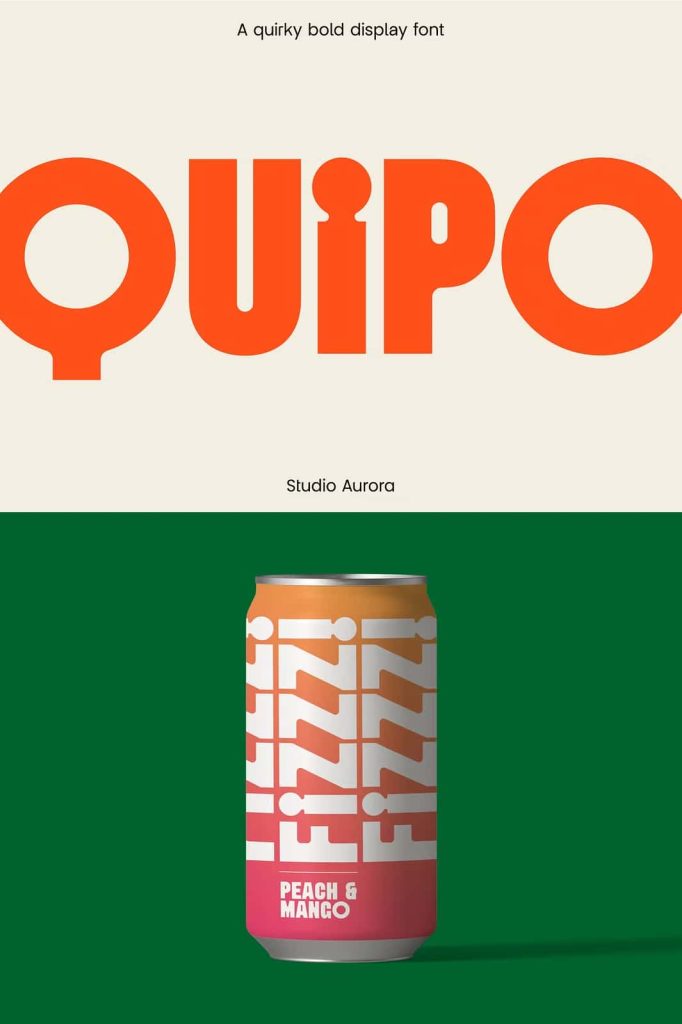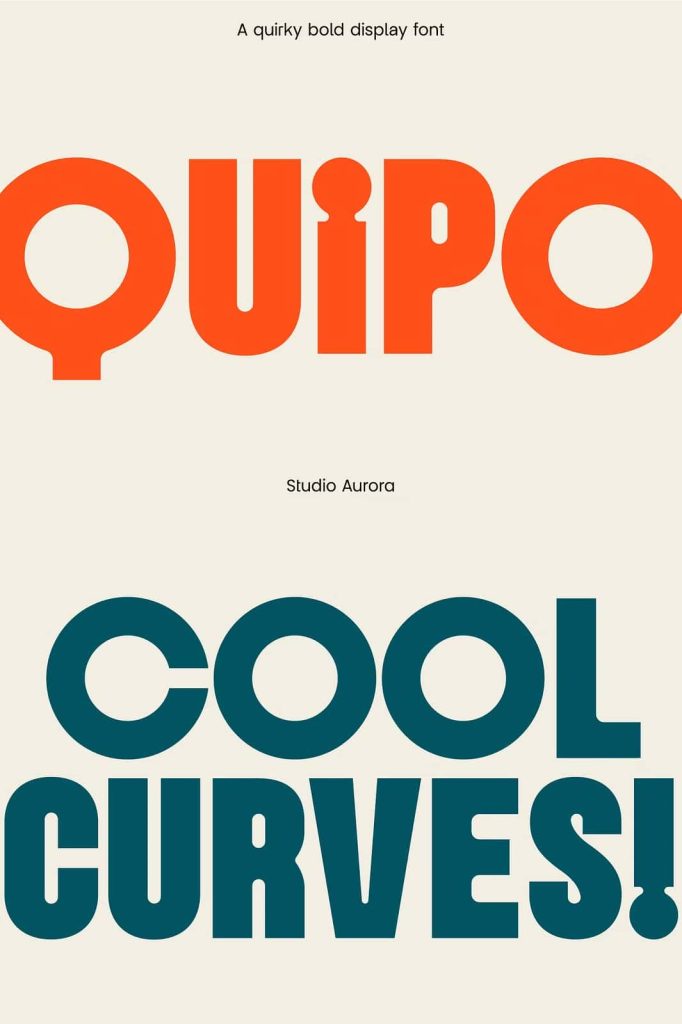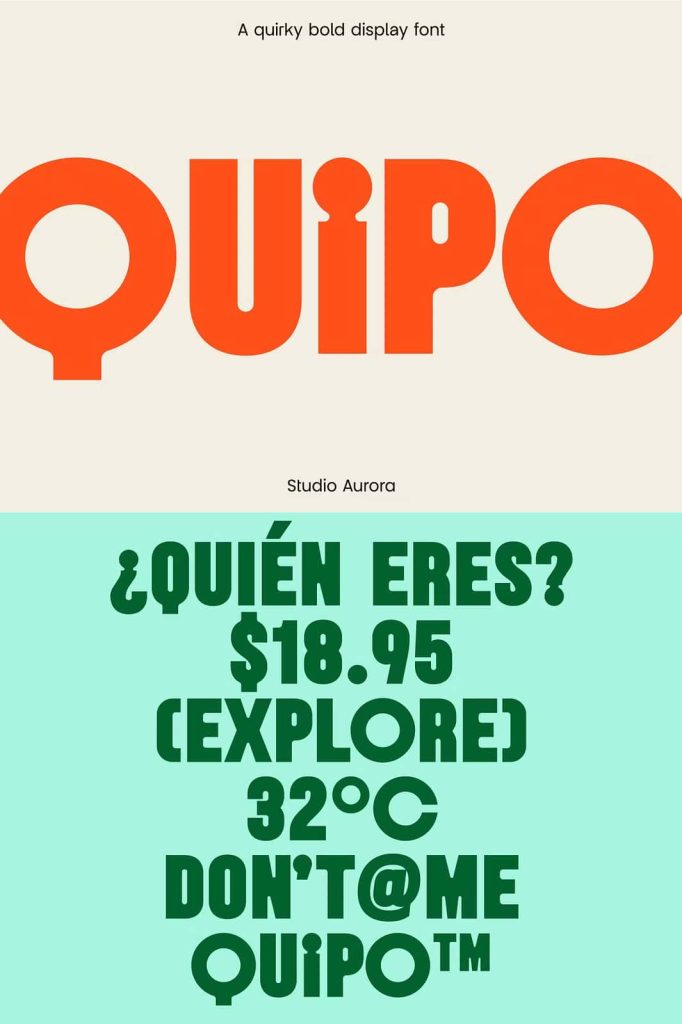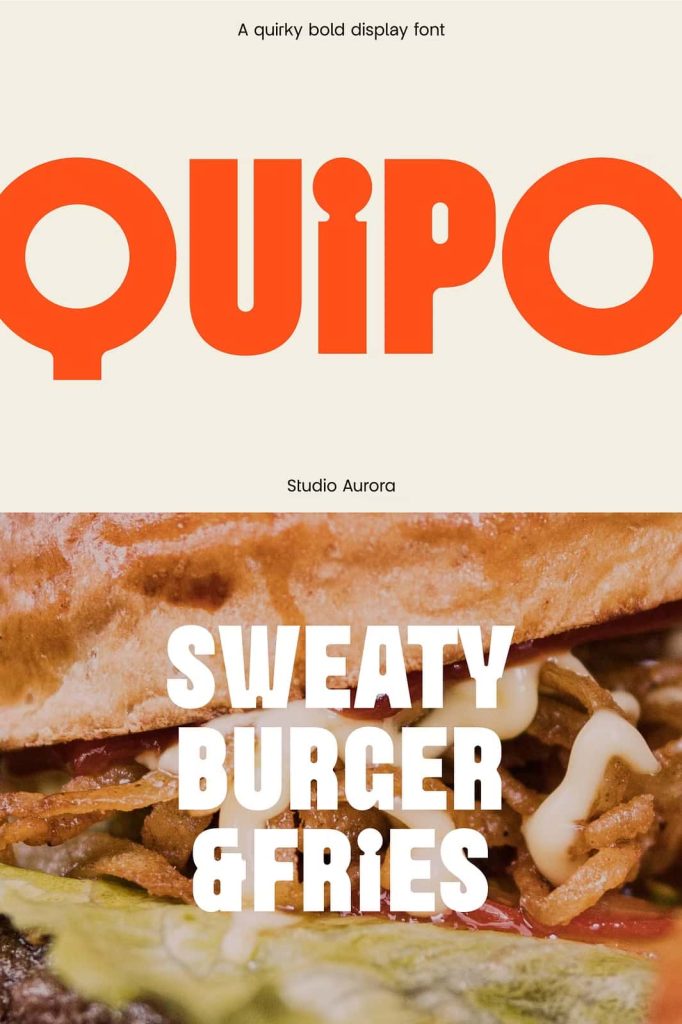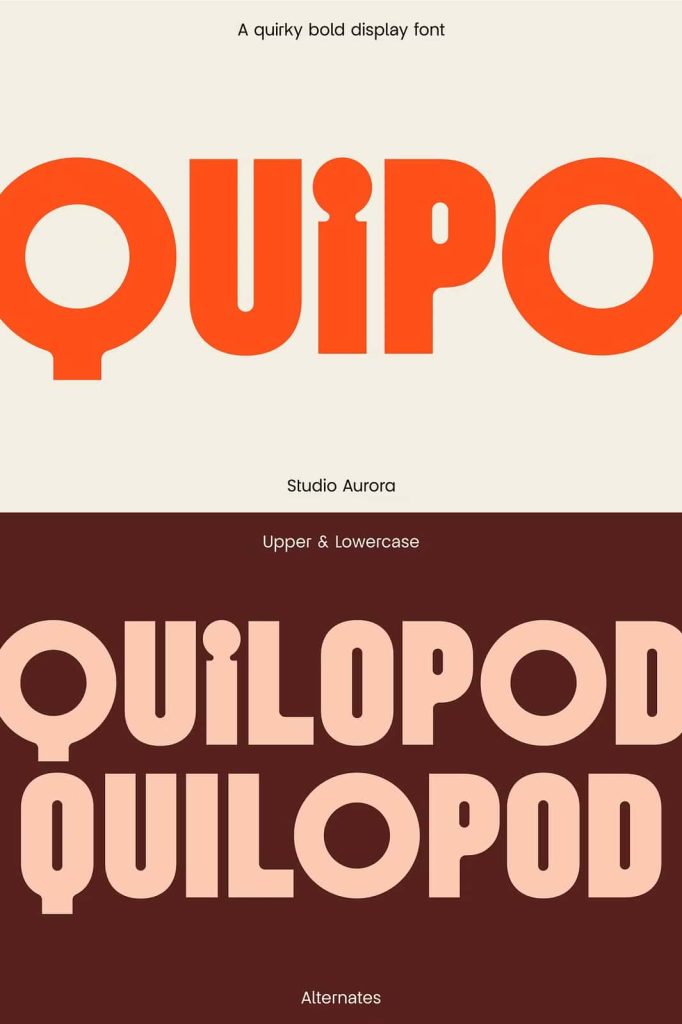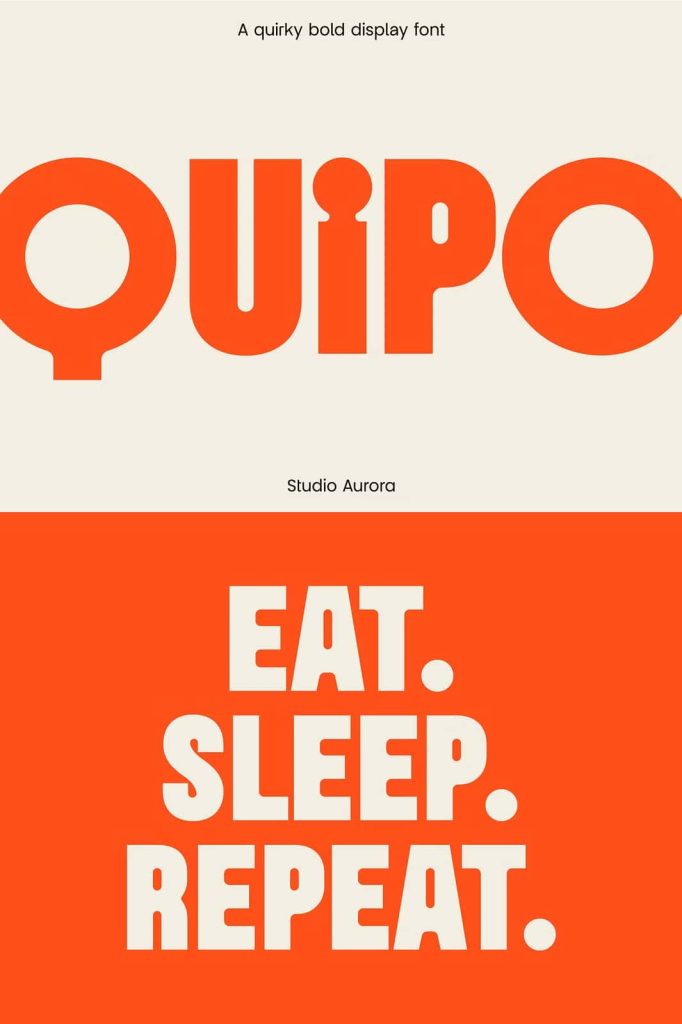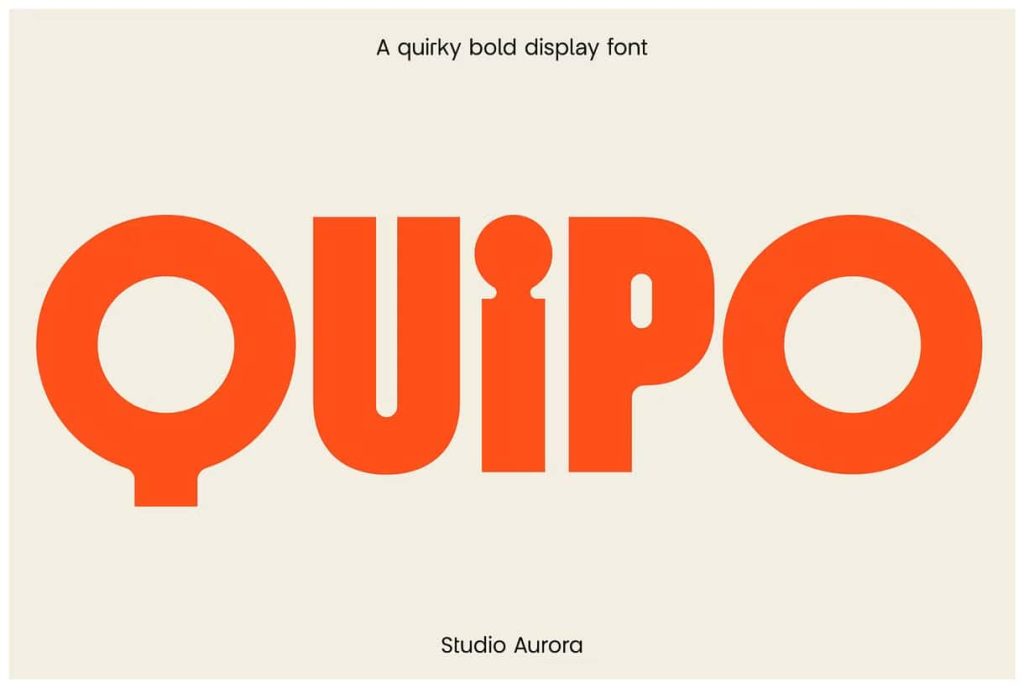
Quipo – Quirky Bold Display Font
Quipo: A Quirky and Bold Display Font with Contemporary Impact
Quipo is a bold display font that commands attention through playful curves and confident letterforms. Designed to stand out in modern visual environments, this typeface delivers immediate impact while maintaining a contemporary edge. Its distinctive shapes create a strong visual rhythm, making it ideal for designers who want their typography to lead the conversation.
With its combination of thickness and curvature, Quipo breaks away from traditional display fonts. It feels energetic, expressive, and unmistakably modern. Whether used in print or digital media, Quipo ensures your message never goes unnoticed.
Curved Letterforms with a Bold Personality
The defining feature of Quipo is its curved, exaggerated letterforms. Each character is designed with smooth arcs and rounded edges that create a friendly yet powerful presence. This balance between softness and strength gives the font its quirky personality.
Quipo’s bold weight reinforces readability while enhancing visual impact. The font performs exceptionally well at large sizes, where its unique curves can fully express their character. This makes it perfect for headlines, mastheads, and key messaging elements.
Designed to Capture Attention Instantly
Quipo is built for moments where first impressions matter. The font instantly draws the eye, making it an excellent choice for branding elements that need to stand out in crowded spaces. Its playful curves invite engagement, while its bold structure maintains clarity and confidence.
This combination allows Quipo to feel expressive without becoming overwhelming, ensuring your design remains effective and readable.
Perfect for Logos, Mastheads, and Editorial Design
Quipo excels in logo design, especially for brands that want to communicate creativity, innovation, and personality. Its distinctive letterforms help establish a memorable brand identity that feels modern and approachable.
For magazine mastheads and editorial headlines, Quipo delivers strong visual hierarchy. It anchors layouts with confidence and adds character to covers, feature articles, and promotional spreads. The font works particularly well in fashion, lifestyle, and culture-focused publications.
Effective for Email Marketing and Digital Campaigns
In digital marketing, typography plays a critical role in engagement. Quipo performs exceptionally well in email marketing campaigns, where bold headlines must capture attention quickly. Its readability ensures messages remain clear, even on smaller screens.
The font’s playful tone can soften promotional messaging, making calls to action feel more inviting. This makes Quipo a smart choice for campaigns that aim to connect with audiences through creativity rather than aggressive sales tactics.
Versatile Across Print and Digital Platforms
Quipo adapts smoothly across various media formats. It maintains consistency whether printed on posters and packaging or displayed on websites and digital advertisements. This versatility allows designers to use the font confidently across multi-channel campaigns.
The font pairs well with clean sans-serif or minimalist typefaces, allowing Quipo to shine as a display element while supporting text remains simple and structured.
Why Choose Quipo?
Quipo is more than a display font. It is a creative tool designed to help brands and designers express personality, confidence, and modern style. Its quirky curves and bold presence make it ideal for projects that require instant recognition and visual impact.
If your design needs to feel contemporary, expressive, and memorable, Quipo provides the typographic strength to bring your ideas to life with clarity and character.